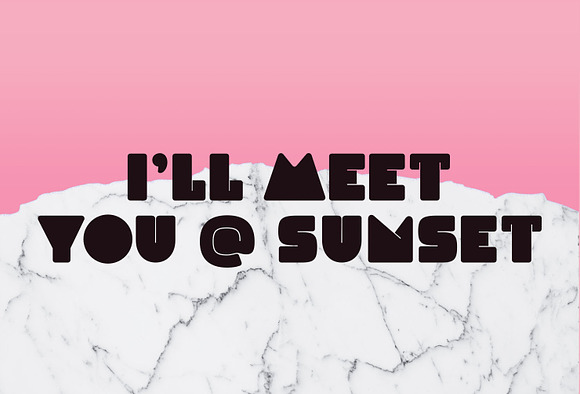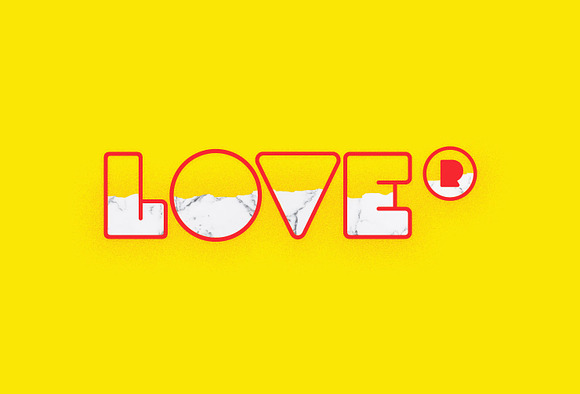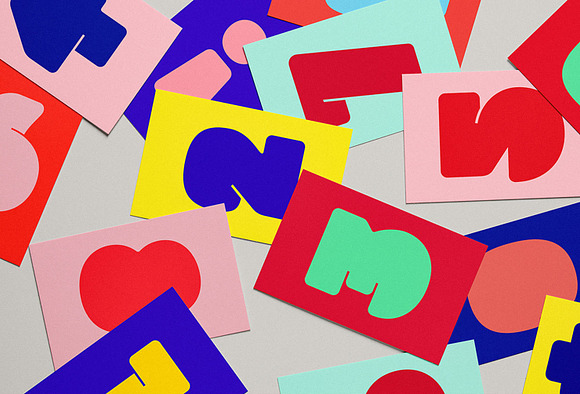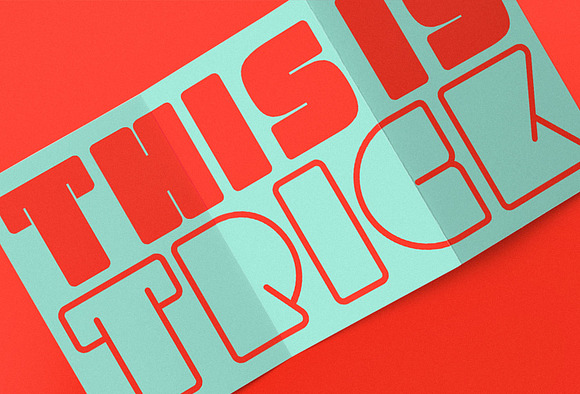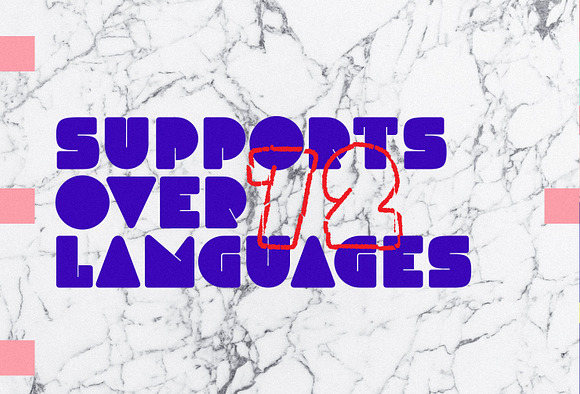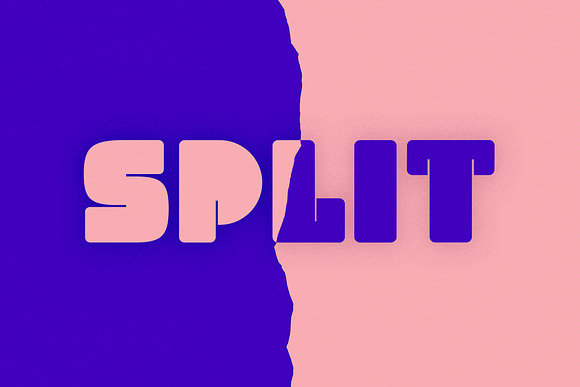
Split Type Family
Split is a display typeface inspired by the stencil typefaces designed to be bold and cool! Each letter carries a basic shape, with only minimal design to highlight their essential features. The whole typeface is constructed based on Geometric and Square Sans Serif characters featuring rounded corners to bring a casual look. Split is available in 3 Styles: Outline, Filled and Doodle.